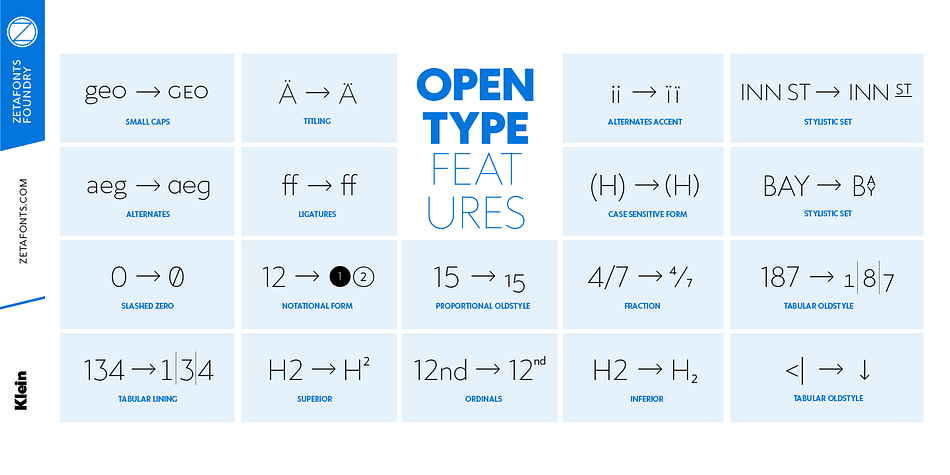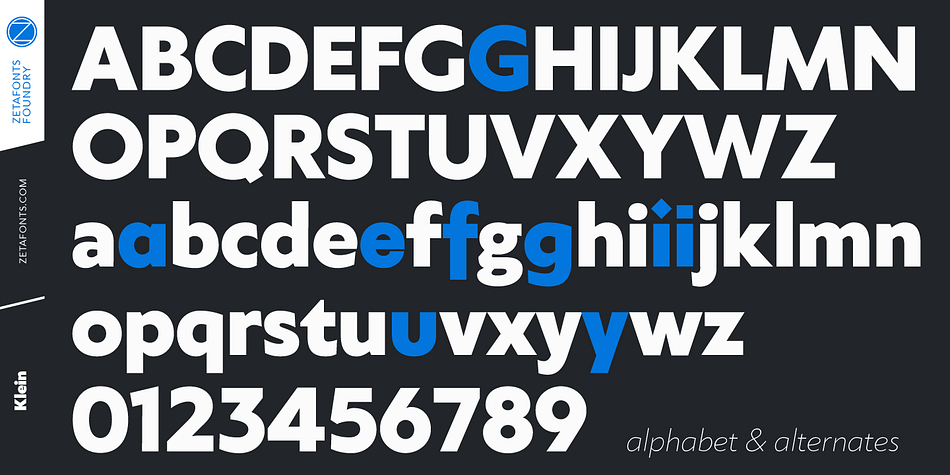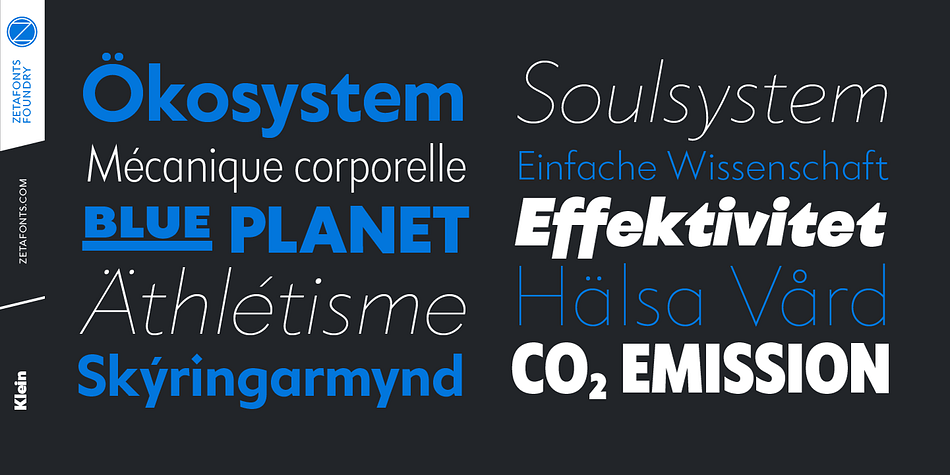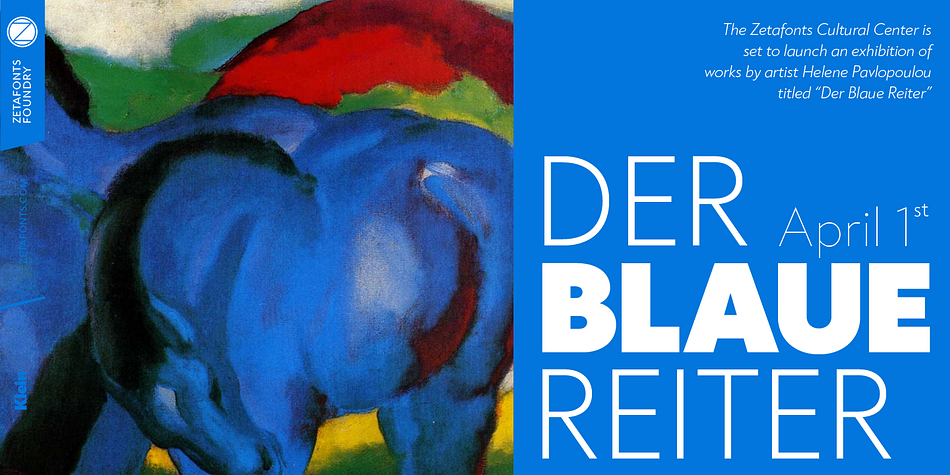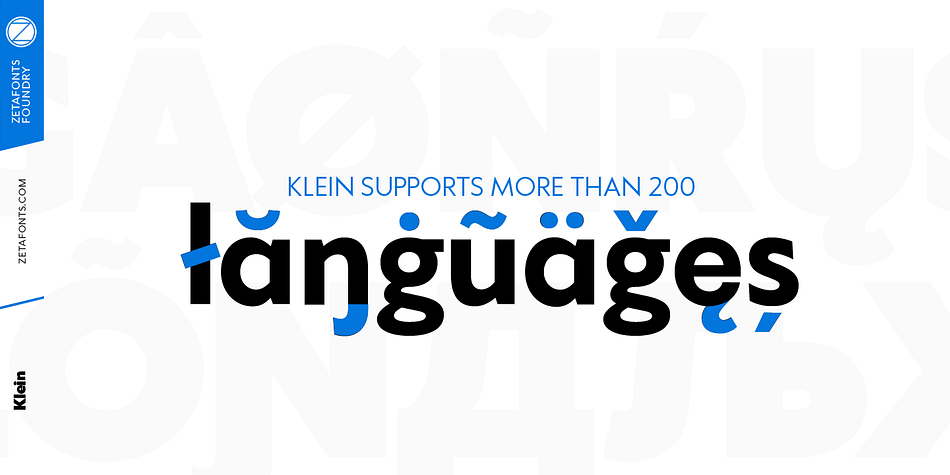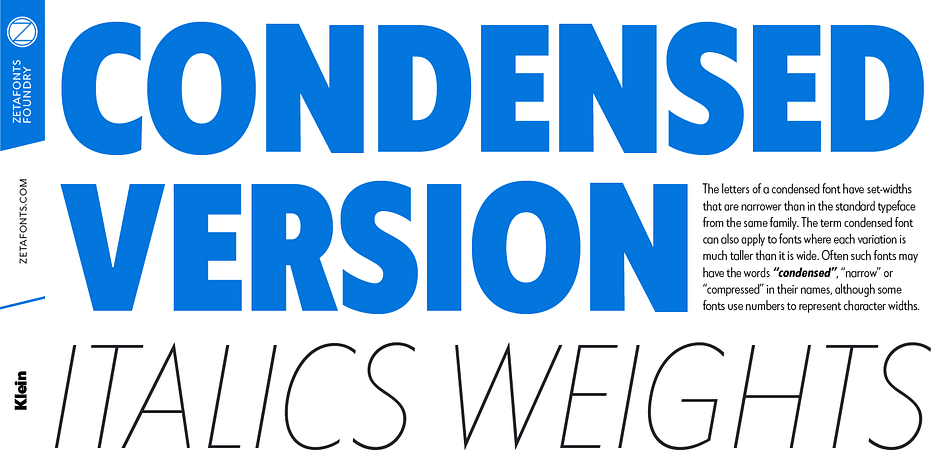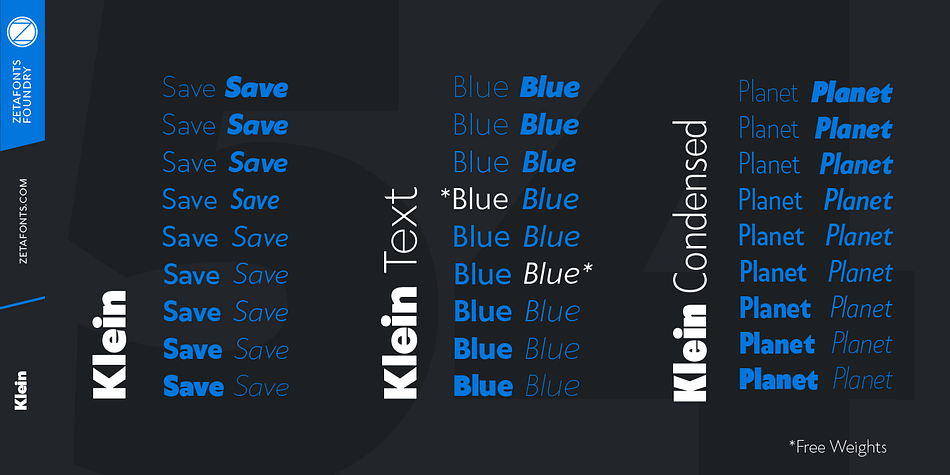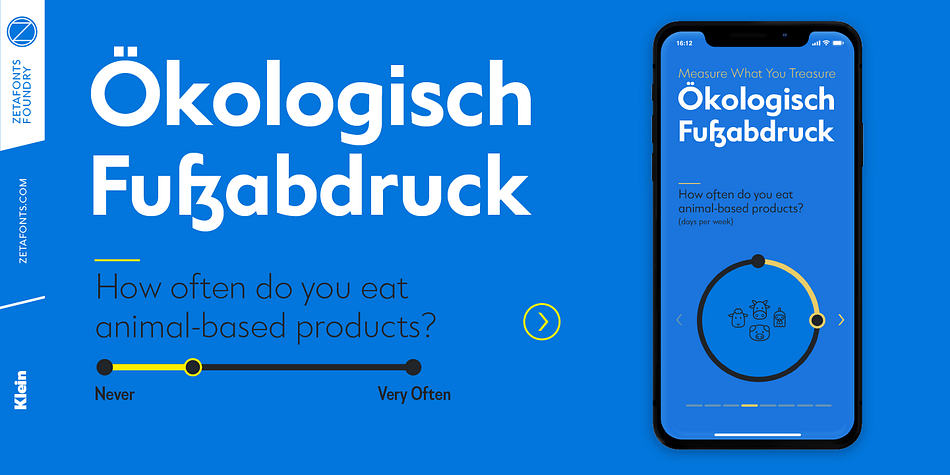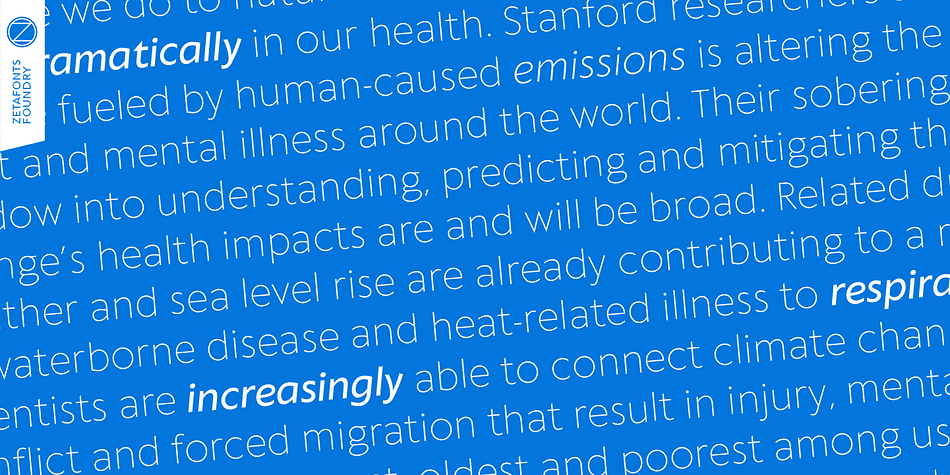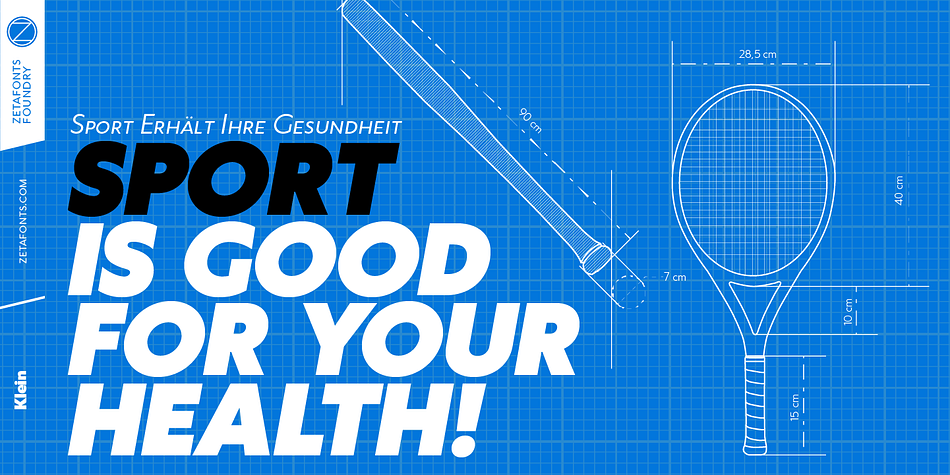
Designed by Francesco Canovaro, Cosimo Pancini and Andrea Tartarelli, Klein is a sans serif font family. This typeface has fifty-four styles and was published by Zetafonts.
Klein is Zetafonts love letter to the grandmother of all geometric sans typefaces, Futura. Starting from a dialogue with Paul Renner’s iconic letterforms and proportions, Francesco Canovaro and Andrea Tartarelli decided to depart from its distinctive modernist shapes with slight humanist touches and grotesque solutions - with some design choices evoking the softness of humanist sans serifs like Gill Sans.
The end result is a workhorse superfamily of 54 fonts with full multilingual capabilities and coverage of over two hundred languages using latin, cyrillic and greek alphabets. The original display-oriented family, developed in nine weights with matching italics (from the hairline thin to the sturdy black), has been paired with a text version (with slightly higher x-height, better readability and maximum legibility at small point size) and with a condensed version, to be used for space-saving display solutions in editorial and advertising formats.
With a name that is both a nod to its humble functionality and an homage to french nouveau realiste artist Yves Klein, this typeface aims to become your next trusted companion in all your adventures in print, digital and motion design.